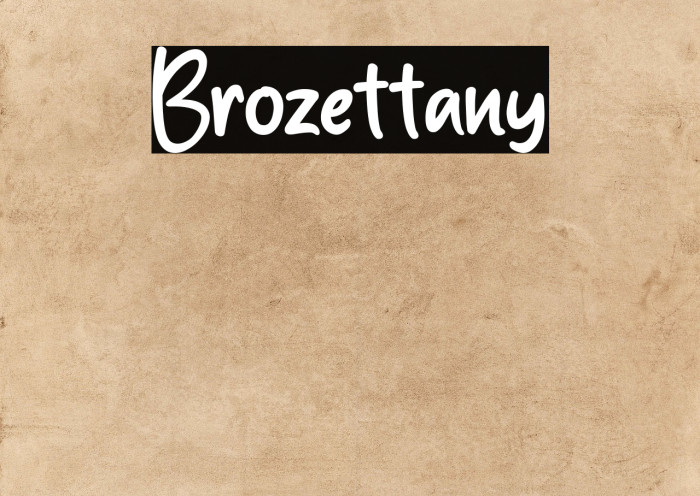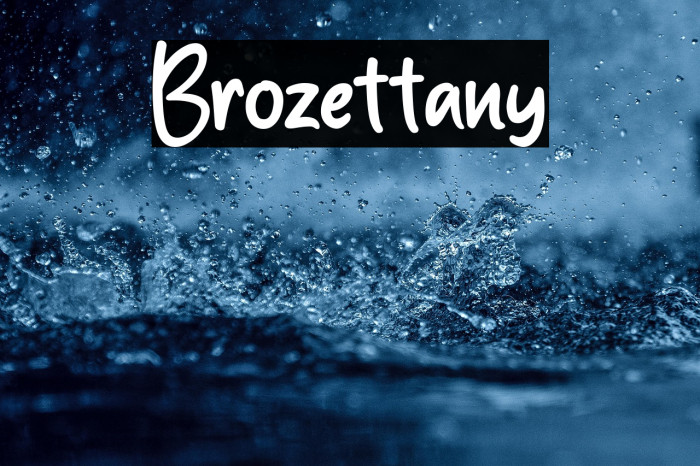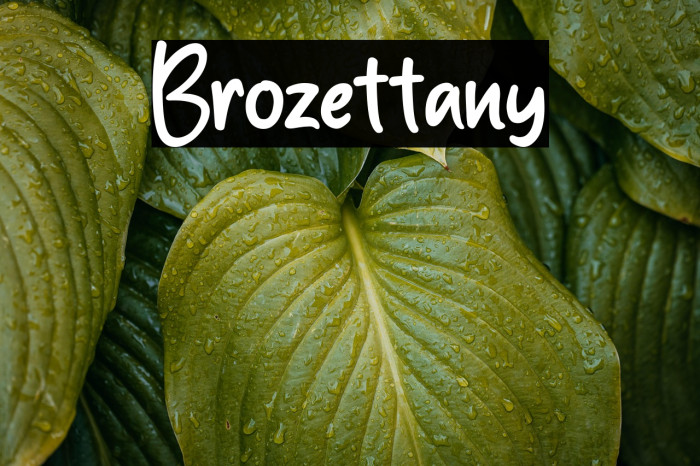
Brozettany Font
Brozettany Description
This font features a playful and casual handwritten style, characterized by its smooth, flowing lines and slightly irregular shapes. The letters have a consistent stroke width, giving it a uniform appearance while maintaining a lively and informal feel. The uppercase letters are tall and slightly narrow, while the lowercase letters are more rounded and compact. The numbers and special characters follow the same playful style, making the font versatile for various uses. Its friendly and approachable design makes it suitable for projects that require a personal touch.
Overall StyleCasual
Use CaseLogos, Headlines, Informal text
Proposed ProjectsIdeal for greeting cards, invitations, children's books, and social media graphics.